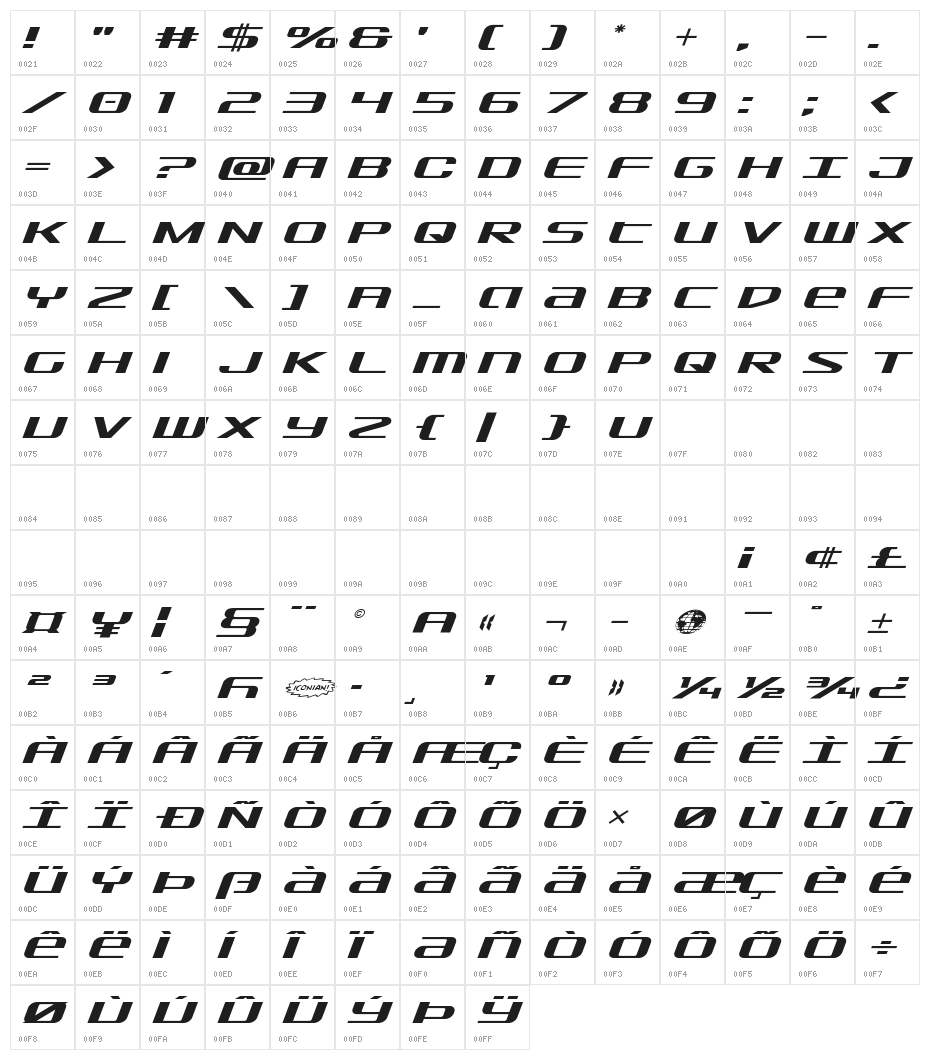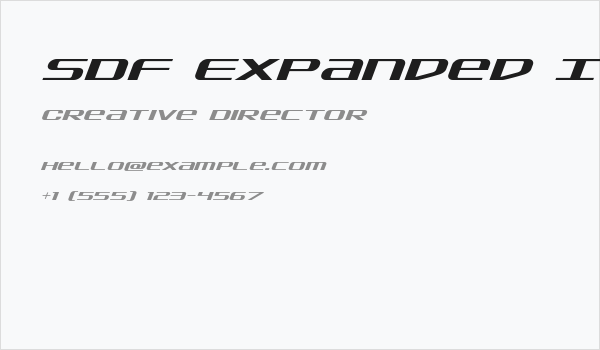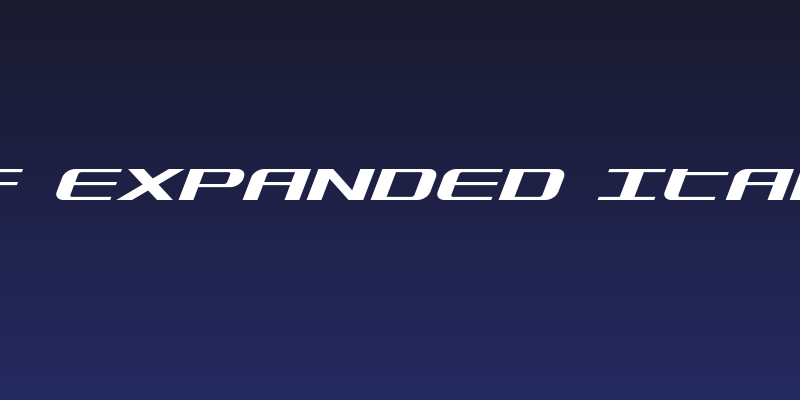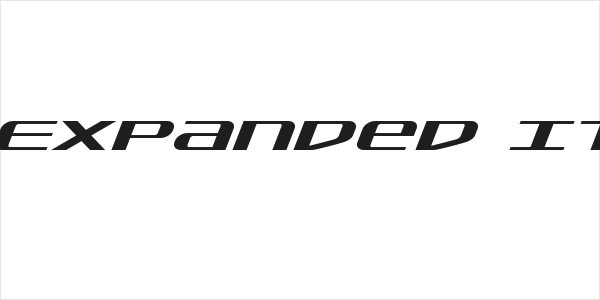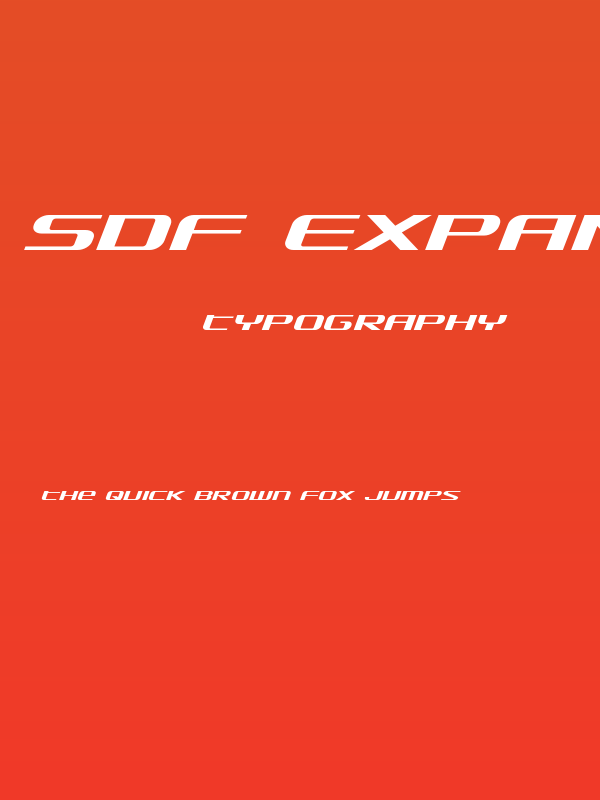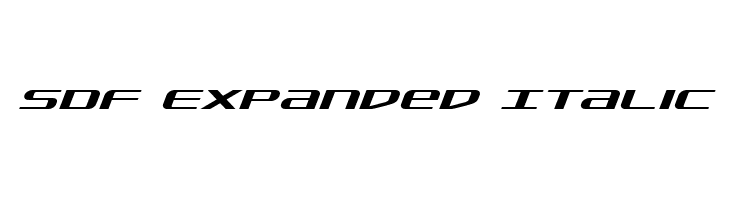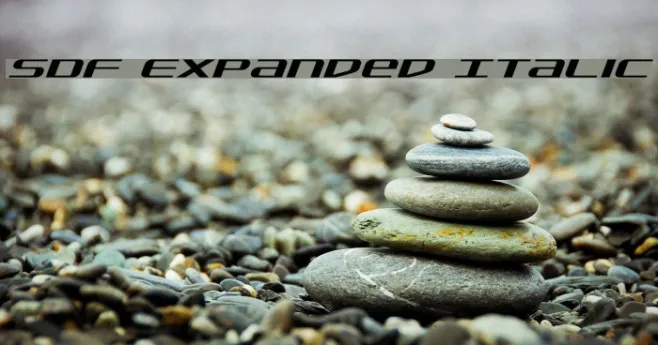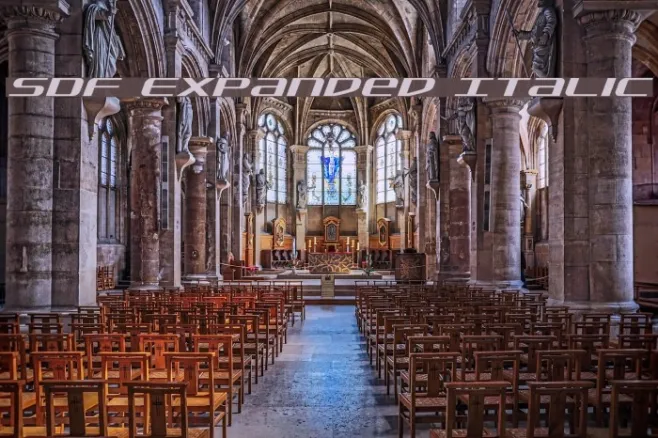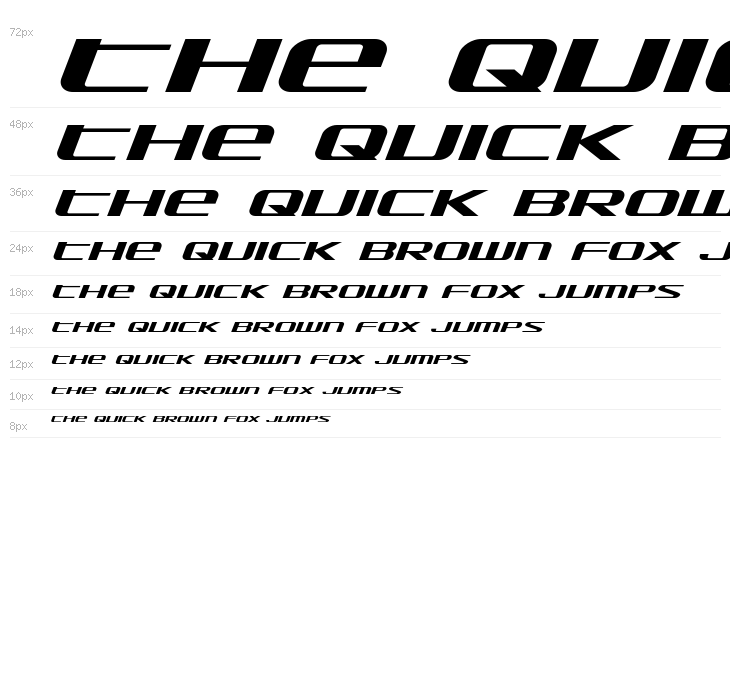
SDF Expanded Italic Font
SDF Expanded Italic Description
This font features a dynamic and futuristic design with an italicized and expanded style. The characters are sleek and elongated, giving a sense of motion and speed. The angular cuts and sharp edges contribute to a modern, high-tech appearance. The uppercase and lowercase letters maintain a consistent style, while the numerals and special characters complement the overall aesthetic. This font is ideal for projects that require a bold and forward-thinking look, such as technology branding or sports-related designs.
| Proposed Projects | Ideal for technology branding, sports designs, futuristic themes, and dynamic advertising. |